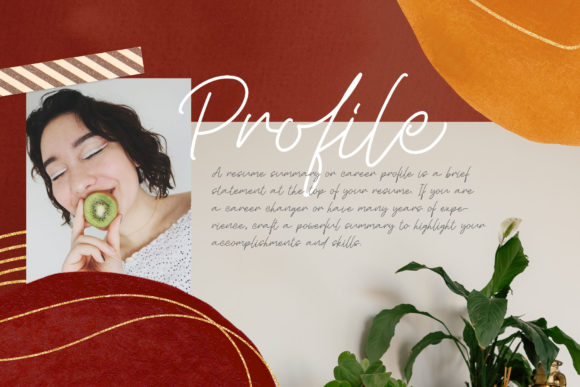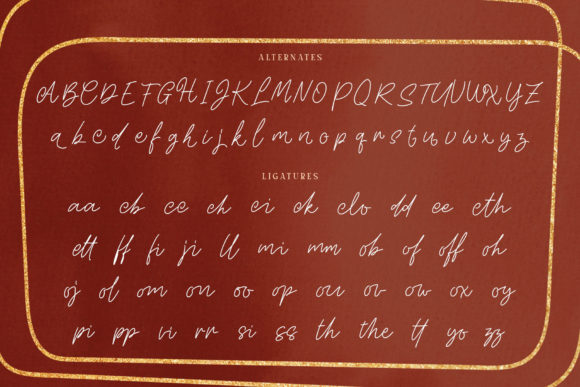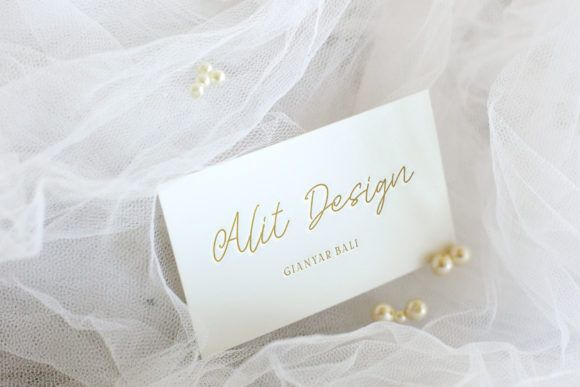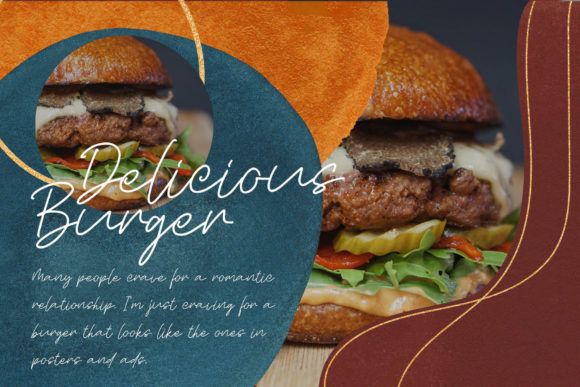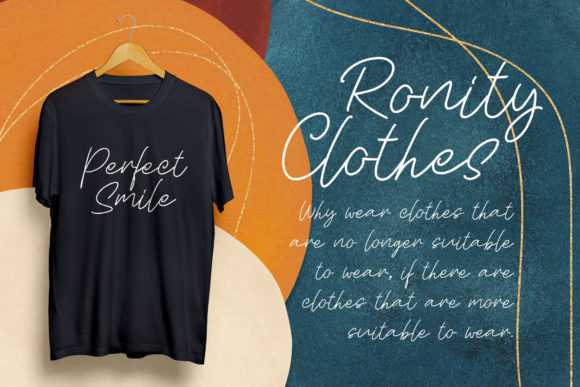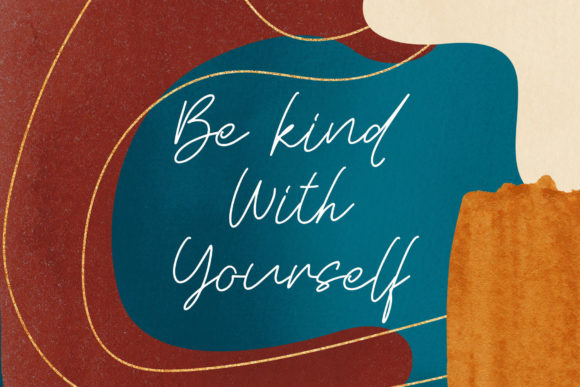
Introducing Bettons Font: Elevate Your Design with Luxury and Elegance
Are you looking for a font that can add a touch of luxury and sophistication to your design projects? Look no further than Bettons Font, a beautiful light handwritten font that is sure to make your designs stand out. With its unique feel and stunning impact, Bettons Font is the perfect choice for designers and crafters who want to create high-end designs that exude elegance and refinement.
The Unique Features of Bettons Font
Bettons Font is a carefully crafted font that boasts a range of unique features that set it apart from other fonts. Its light and airy feel gives it a sense of elegance and sophistication, making it perfect for designs that require a touch of luxury. The font’s handwritten style also adds a personal touch, making it ideal for projects that require a more bespoke feel.
The Benefits of Using Bettons Font
So why choose Bettons Font for your design projects? Here are just a few benefits of using this stunning font:
- Adds a touch of luxury: Bettons Font is designed to add a touch of luxury and sophistication to your designs. Its elegant and refined feel makes it perfect for high-end designs that require a sense of exclusivity.
- Unique and eye-catching: With its unique feel and stunning impact, Bettons Font is sure to grab attention and make your designs stand out.
- Versatile: Bettons Font is a versatile font that can be used for a range of design projects, from branding and packaging to wedding invitations and more.
- Easy to read: Despite its elegant and refined feel, Bettons Font is also easy to read, making it perfect for designs that require a clear and concise message.
How to Use Bettons Font in Your Design Projects
Using Bettons Font in your design projects is easy. Here are a few tips to get you started:
- Pair it with bold fonts: Bettons Font pairs perfectly with bold fonts, creating a striking contrast that adds visual interest to your designs.
- Use it for headings and titles: Bettons Font is perfect for headings and titles, where its elegant and refined feel can really shine.
- Experiment with different colors: Bettons Font looks great in a range of colors, from classic black and white to bold and bright hues.
Who is Bettons Font Suitable For?
Bettons Font is suitable for a range of designers and crafters, including:
- Graphic designers: Bettons Font is perfect for graphic designers who want to create high-end designs that exude elegance and sophistication.
- Wedding planners and stationery designers: Bettons Font is a popular choice for wedding planners and stationery designers who want to create beautiful and elegant wedding invitations and stationery.
- Crafters and bloggers: Bettons Font is also perfect for crafters and bloggers who want to add a touch of luxury and sophistication to their designs.
In conclusion, Bettons Font is a beautiful light handwritten font that is sure to elevate your design projects with its luxury and elegance. With its unique feel and stunning impact, Bettons Font is the perfect choice for designers and crafters who want to create high-end designs that exude sophistication and refinement. So why not give Bettons Font a try today and see the difference it can make to your designs?